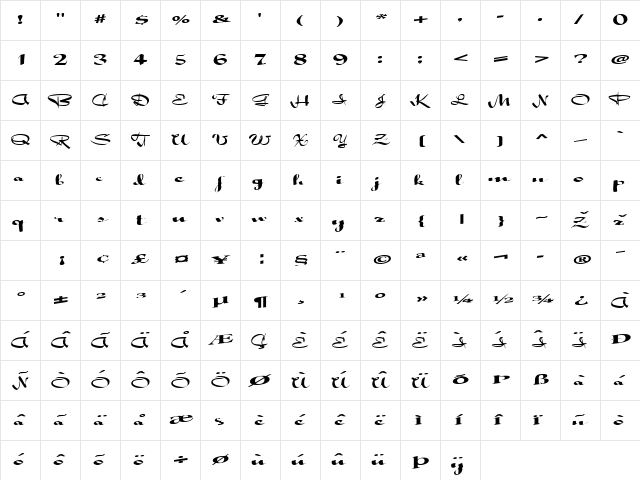
ABSALOM Regular
Design Context for ABSALOM
ABSALOM is a composed and adaptable typeface that performs quietly and consistently across a wide range of design contexts.